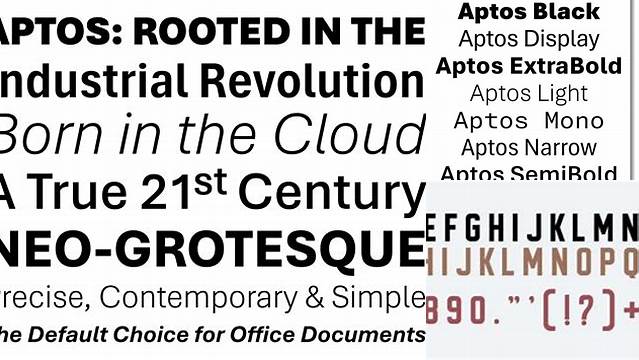
Are you looking for a sleek and modern font to elevate your design projects? Look no further! The Aptos Display Regular font is a fantastic choice for various applications, from branding and advertising to web design and print materials. This guide will walk you through everything you need to know about this versatile font, including where to download it for free and how to use it effectively in your projects.
What is Aptos Display Regular Font?
Aptos Display Regular is a contemporary sans-serif typeface known for its clean lines, excellent readability, and overall versatility. It's part of the larger Aptos family, designed to provide a modern and approachable aesthetic. The “Display” variant is specifically crafted for headlines, titles, and other prominent text elements where visual impact is crucial. Its regular weight strikes a perfect balance between boldness and subtlety, making it suitable for a wide range of design contexts.
The beauty of Aptos Display Regular lies in its simplicity. It avoids unnecessary embellishments, focusing instead on clear, geometric forms that ensure legibility even at smaller sizes. This makes it an excellent choice for both digital and print media. The font's neutral design also allows it to pair seamlessly with other typefaces, giving you greater flexibility in your design compositions. Whether you're designing a website, creating a marketing campaign, or crafting a presentation, Aptos Display Regular can help you achieve a professional and polished look. Its modern aesthetic ensures that your designs will feel current and relevant, while its versatility means that it can adapt to a variety of different styles and tones. From corporate branding to creative projects, this font is a valuable asset for any designer looking to make a lasting impression.
Why Choose Aptos Display Regular?
Choosing the right font can significantly impact the success of your design. Aptos Display Regular offers several advantages:
- Modern Aesthetic: Its clean, geometric design gives a contemporary feel.
- Excellent Readability: Clear letterforms ensure legibility in various sizes and contexts.
- Versatility: Suitable for headlines, body text, and diverse design projects.
- Professional Look: Elevates your designs with a polished and sophisticated touch.
When you're working on a project, the aesthetic appeal of your font can make or break the final product. Aptos Display Regular provides that modern edge that many designers seek. Its clean lines and geometric shapes give it a timeless quality, ensuring that your designs won't look dated anytime soon. Furthermore, the font's excellent readability is a crucial factor, especially when it comes to conveying your message effectively. Whether you're designing a website, creating marketing materials, or putting together a presentation, you want your audience to be able to read and understand your content with ease. Aptos Display Regular excels in this regard, making it a reliable choice for various applications. The font's versatility is another key advantage, as it can be used for headlines, body text, and other design elements. This flexibility allows you to maintain a consistent visual identity throughout your project, ensuring a cohesive and professional look. Best of all, Aptos Display Regular is often available for free, making it an accessible option for designers of all levels. By using this font, you can elevate your designs and achieve a polished, sophisticated look without breaking the bank. It’s a win-win situation!